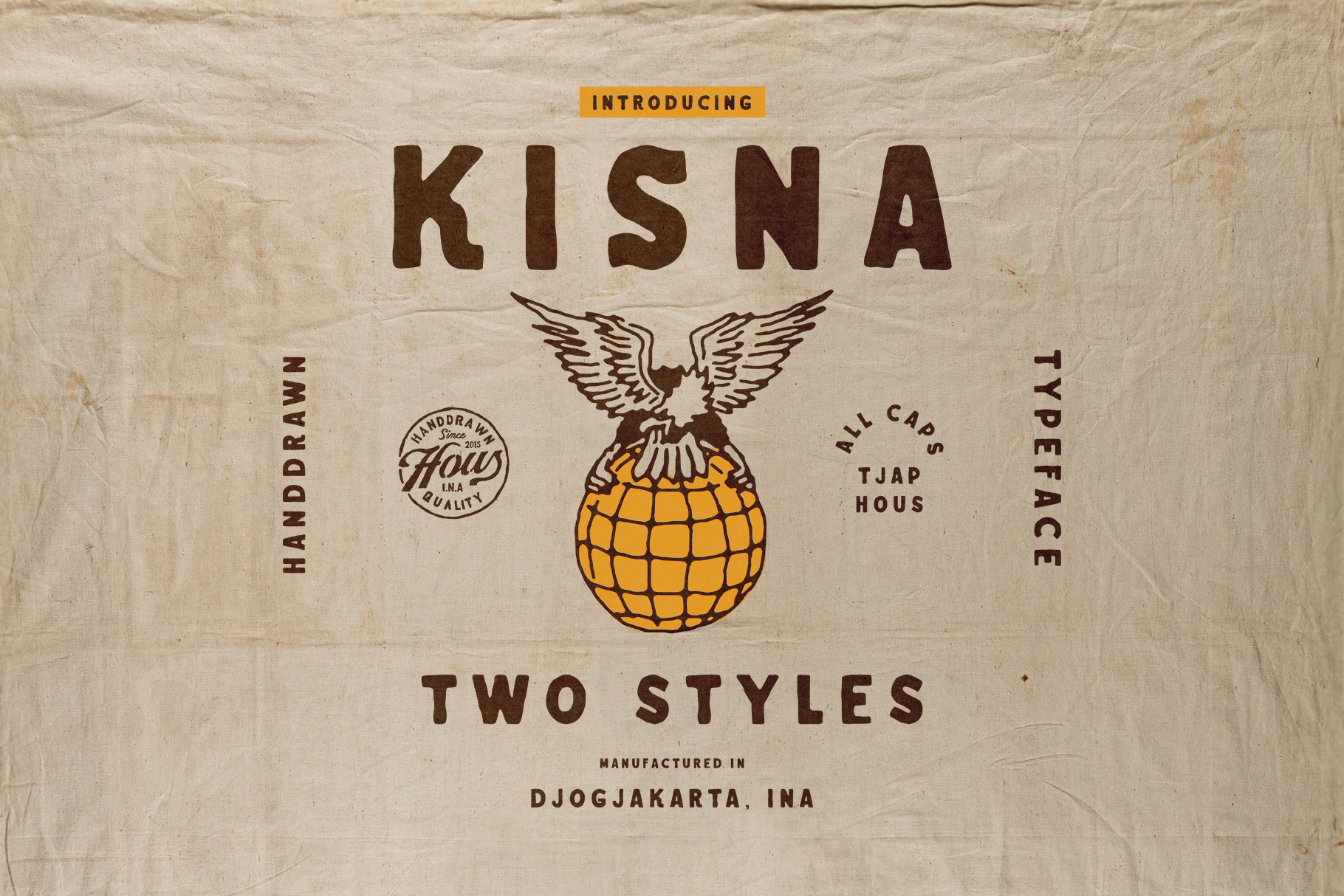
Kisna Typeface
INTRODUCING
KISNA HANDDRAWN TYPEFACE inspired by 1920's graphics. Comes with two styles regular and stamp style. Free 6 logo templates and 20 illustrations!